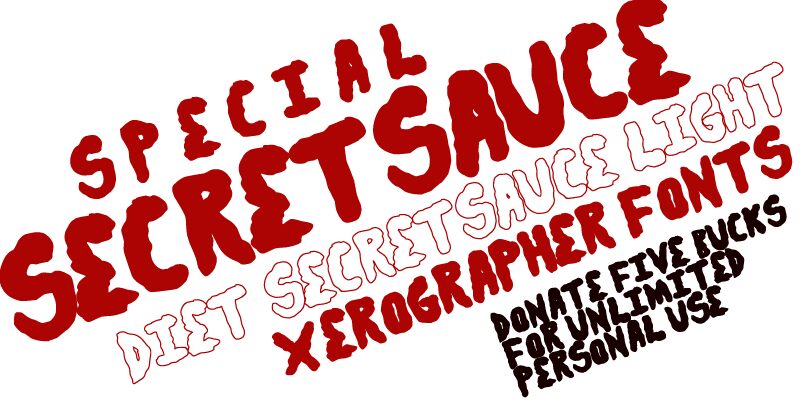
Secret Sauce by Max Infeld of Xerographer.com is a free graffiti display font with swollen, tightly packed letters. Its dense shapes wobble between broad curves and abrupt pinches, with tiny interior gaps that make the lettering look roughly cut and heavily inked. The uneven silhouette feels loud and unruly.
Posters are its strongest medium, especially for underground music events, skate graphics, and streetwear branding, where the compressed forms can function almost like a painted emblem. Album artwork and youth merchandise also suit its blunt, mischievous style, connecting directly with audiences drawn to DIY graphics and graffiti culture.